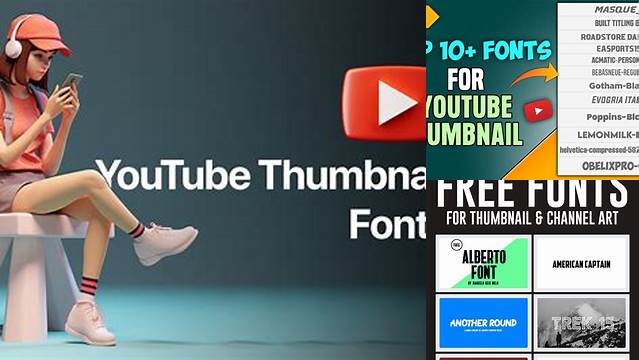
Best YouTube Thumbnail Fonts: Download & Elevate Your Clicks!
Best Fonts for YouTube Thumbnail Download: Elevate Your Click-Through Rates
Hey guys! Are you ready to take your YouTube game to the next level? We all know that a captivating thumbnail is the key to snagging those precious clicks and boosting your view count. And what's the secret ingredient to a killer thumbnail? You guessed it – the right font! Choosing the best fonts for YouTube thumbnail download can seriously transform your video's performance. In this article, we're diving deep into the world of fonts, exploring the top choices, and giving you the lowdown on how to download and use them like a pro. So, buckle up, and let's get your thumbnails looking amazing!
Why Fonts Matter for YouTube Thumbnails
Alright, let's be real: nobody wants to spend hours crafting a video only for it to get lost in the YouTube abyss. That's where your thumbnail steps in – it's your first impression, your digital handshake, and your best shot at grabbing a viewer's attention. But a generic, uninspired thumbnail? Yeah, that's a recipe for low click-through rates (CTR) and missed opportunities. This is the most important part: best fonts for YouTube thumbnail download can influence a viewer's decision to click. Think of your thumbnail as a mini-advertisement for your video. It needs to be visually appealing, instantly understandable, and, most importantly, it needs to communicate what your video is about at a glance. This is where the font comes into play. The right font can transform a simple image into a visual masterpiece, and the wrong one can make your thumbnail look cluttered, confusing, or just plain boring. The font you choose can convey different emotions, from excitement and urgency to sophistication and playfulness. You have to think about your video's tone and target audience. Is your video a high-energy vlog, a calm tutorial, or a serious documentary? The font should align with the content's vibe. A bold, chunky font might work perfectly for a gaming video, but it could feel out of place on a cooking tutorial. And the font is only the first step, after all, a good image and well-chosen colors will make everything look great. Remember that your thumbnail needs to be easily readable on all devices, from smartphones to giant screens. Fonts that are too thin, too fancy, or too small will become a blurry mess, especially when scaled down. So, legibility is key. The best fonts for YouTube thumbnail download are also a matter of branding. Consider the overall aesthetic of your channel. Does your channel have a specific logo or color scheme? Choosing fonts that complement your brand will create a cohesive and recognizable identity, helping viewers associate your videos with your channel. Your video title is a message, so make it stand out! The perfect font should give your video title a punch!
Top Fonts for YouTube Thumbnails: The Ultimate List
Okay, so you get it – fonts are important. But where do you even begin? Don't worry, because we've compiled the best fonts for YouTube thumbnail download to suit every style and niche. These fonts are not only visually appealing but also highly readable, ensuring your message gets across loud and clear. We'll give you some popular options you can start playing with.
- Impact: This is a classic for a reason. Impact is bold, impactful, and instantly grabs attention. It's perfect for attention-grabbing headlines and calls to action. It's a good choice if your goal is to make your thumbnails very readable and easy to understand at a glance. This is perfect for those attention-grabbing moments! For the best result, try using a shadow or outline on your text.
- Roboto: A clean and modern sans-serif font. Roboto is known for its versatility and readability. It's a great all-rounder that works well for a variety of video types. Roboto can work for almost every video type, with the right background and color.
- Arial Black: Another bold and easily readable option, Arial Black is a great choice if you want a strong and confident look. It's a variation of the classic Arial font, but with a much heavier weight, making it ideal for thumbnails. This one also gives a nice punch!
- Bebas Neue: This is a clean, condensed sans-serif font, which is a bit more modern. Bebas Neue is great for headlines and shorter text, giving your thumbnails a sleek and contemporary feel. Bebas Neue is also a great choice for those who want a modern look!
- Oswald: This is a fantastic option if you want a more vintage or retro vibe. Oswald is a condensed sans-serif font, perfect for headlines and creating a strong visual impact. The cool part about this is that it's easily readable in almost every design.
Remember to consider your brand. Do you want to go with a more professional font, or would a funky one be better? The list above is only a starting point, so play around and see what works best for you and your audience.